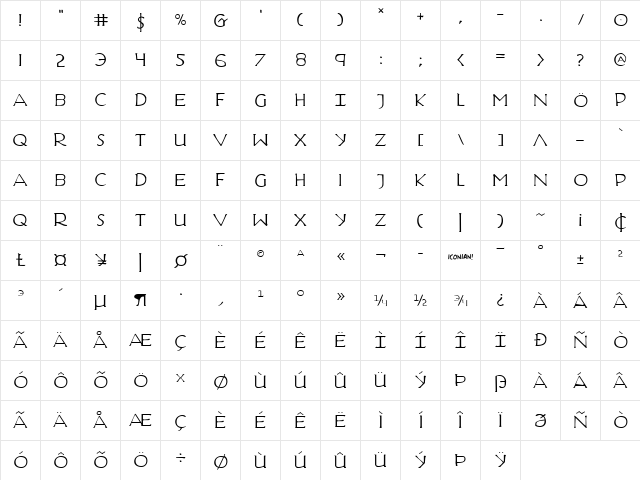
Hadriatic Extended Regular
Design Context for Hadriatic Extended Typeface
Hadriatic Extended takes a measured approach to typography — its balanced proportions and neutral character make it a reliable workhorse for both digital and print work.